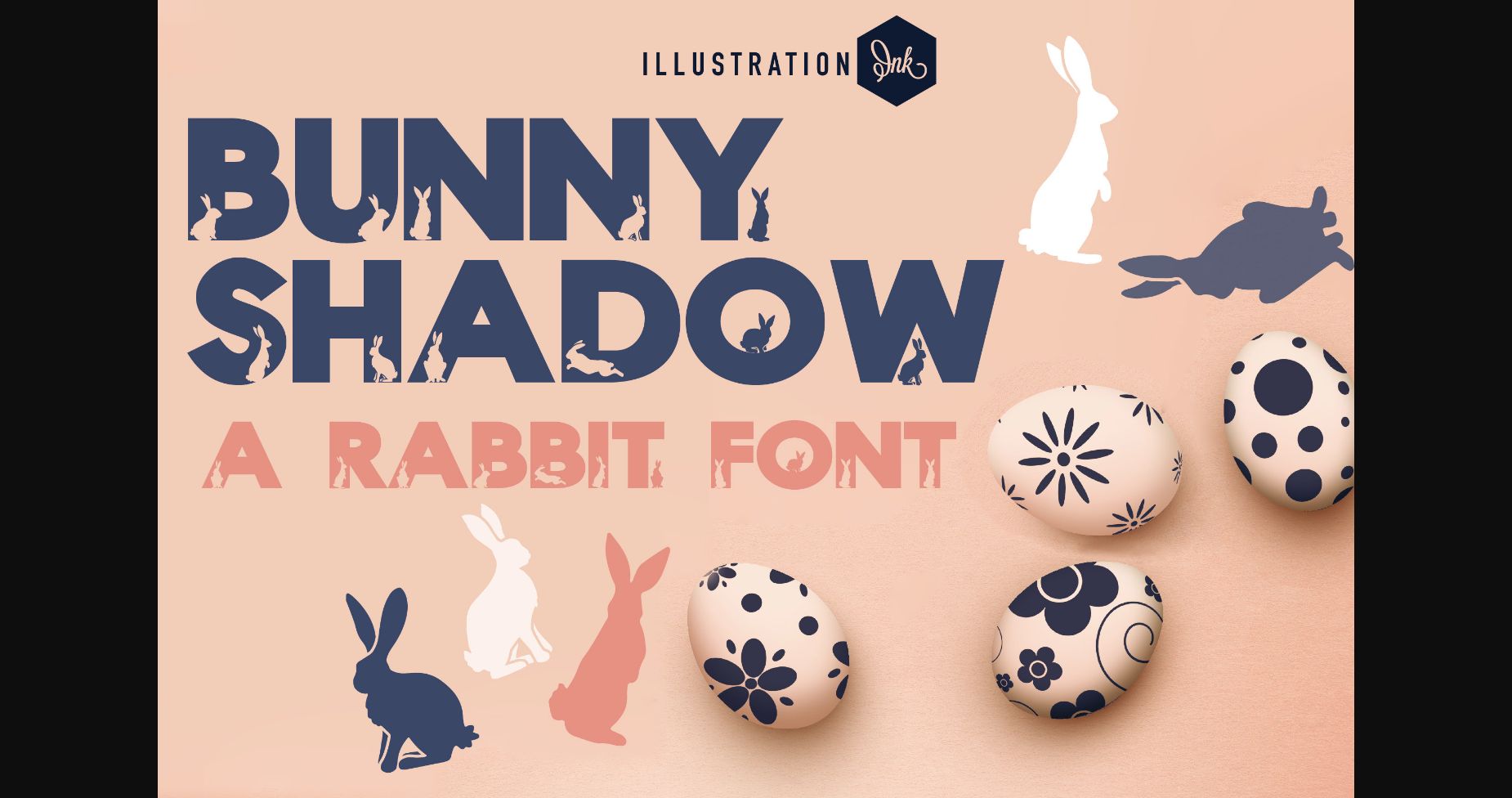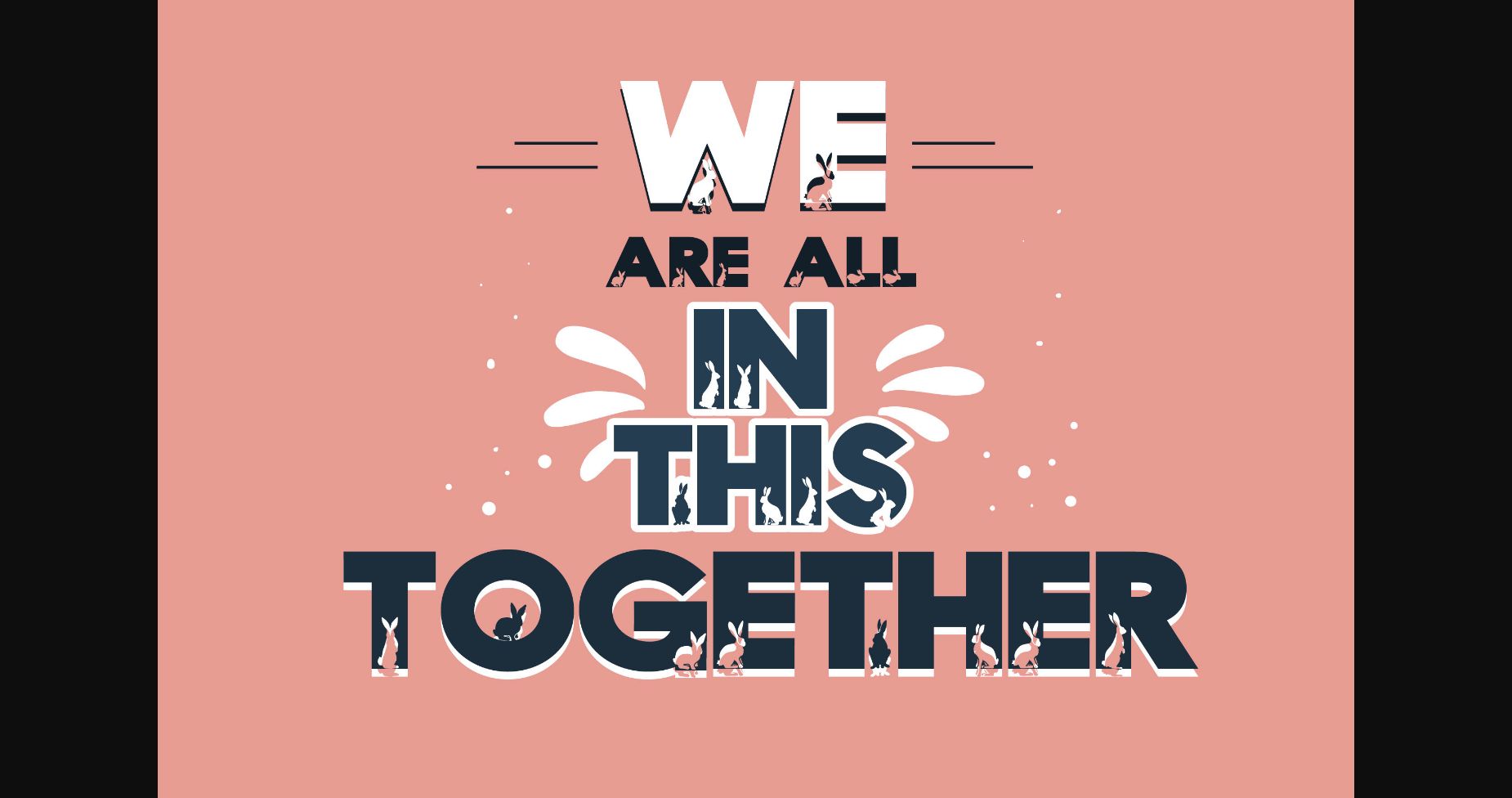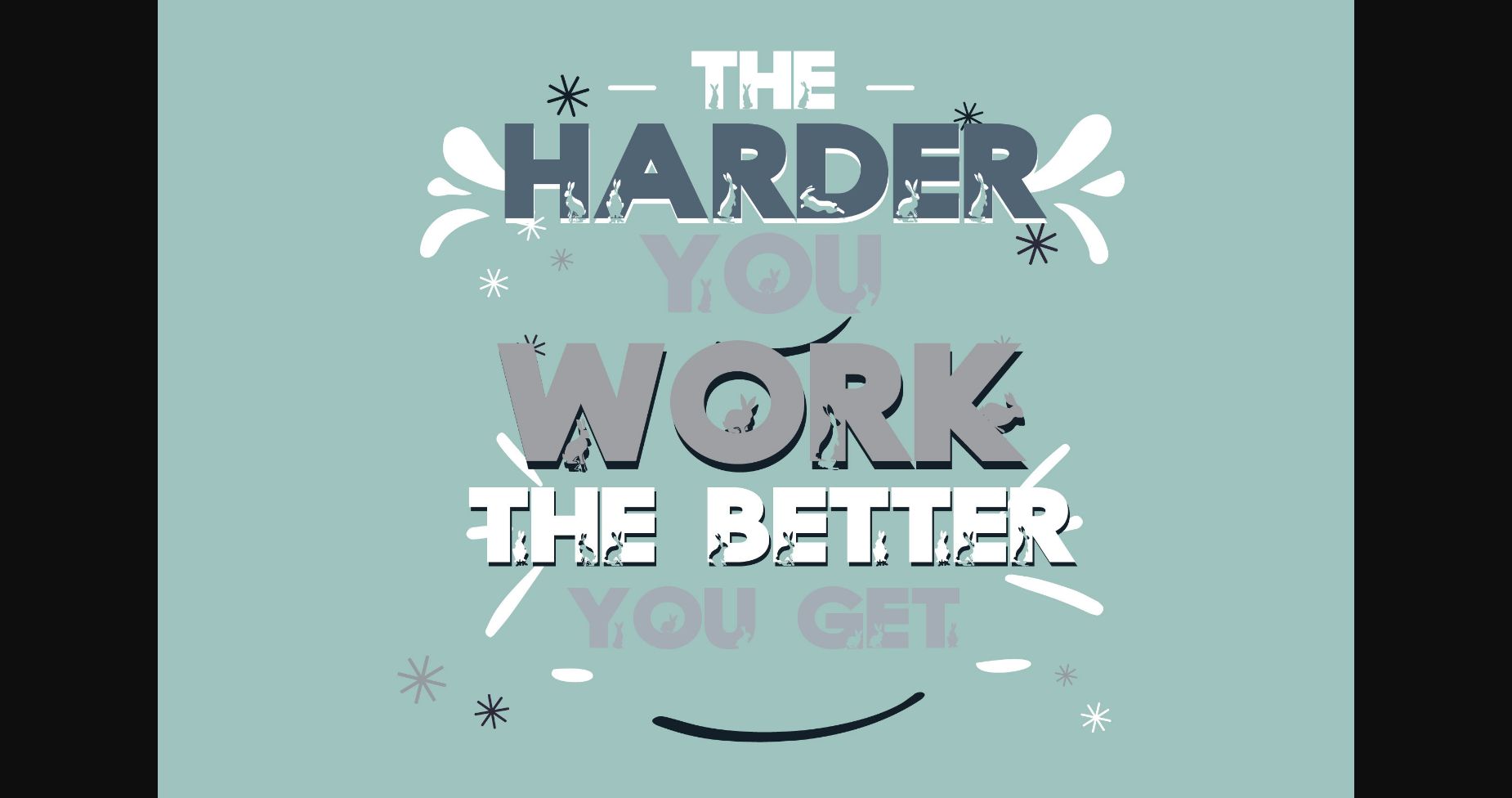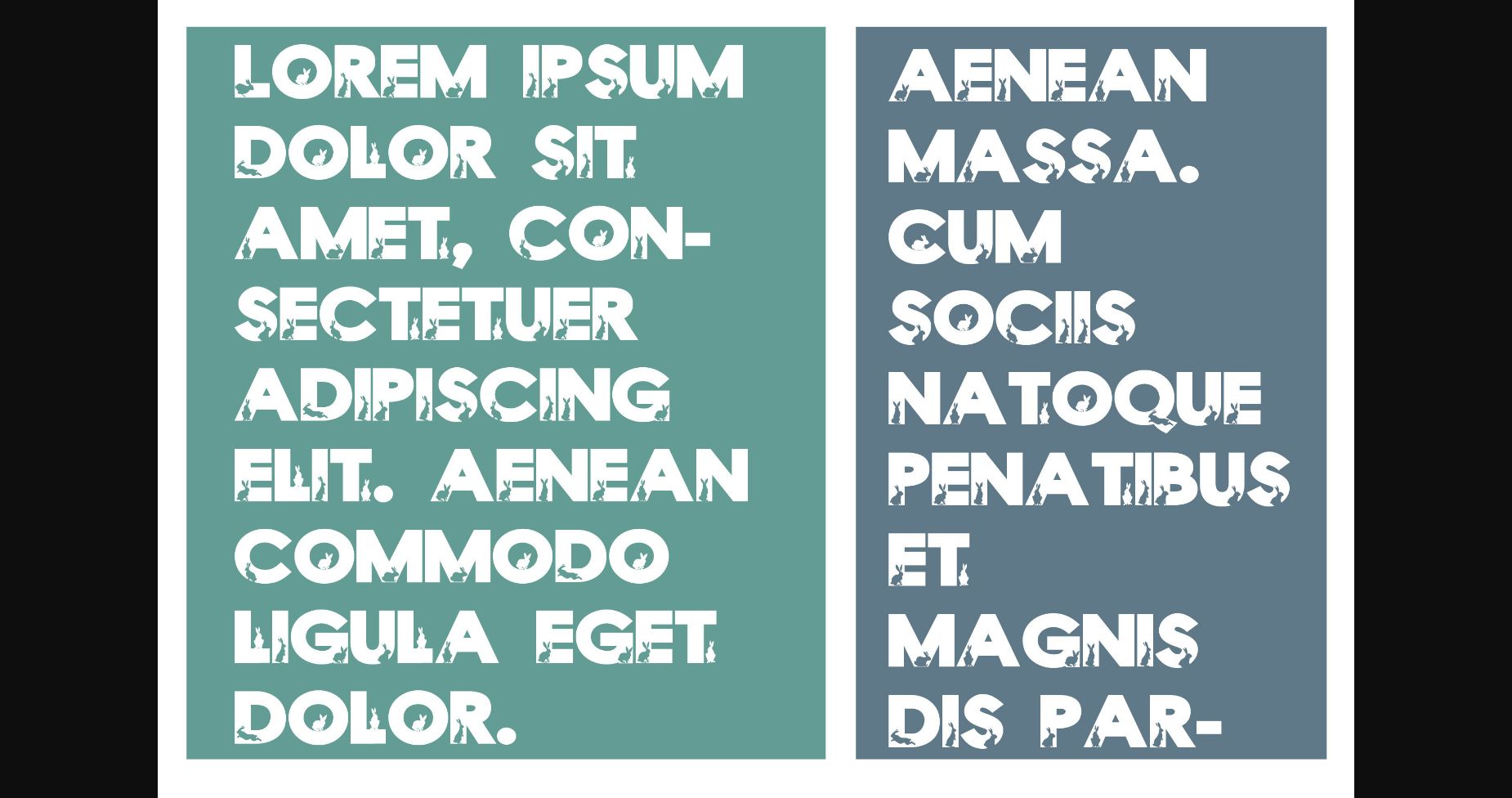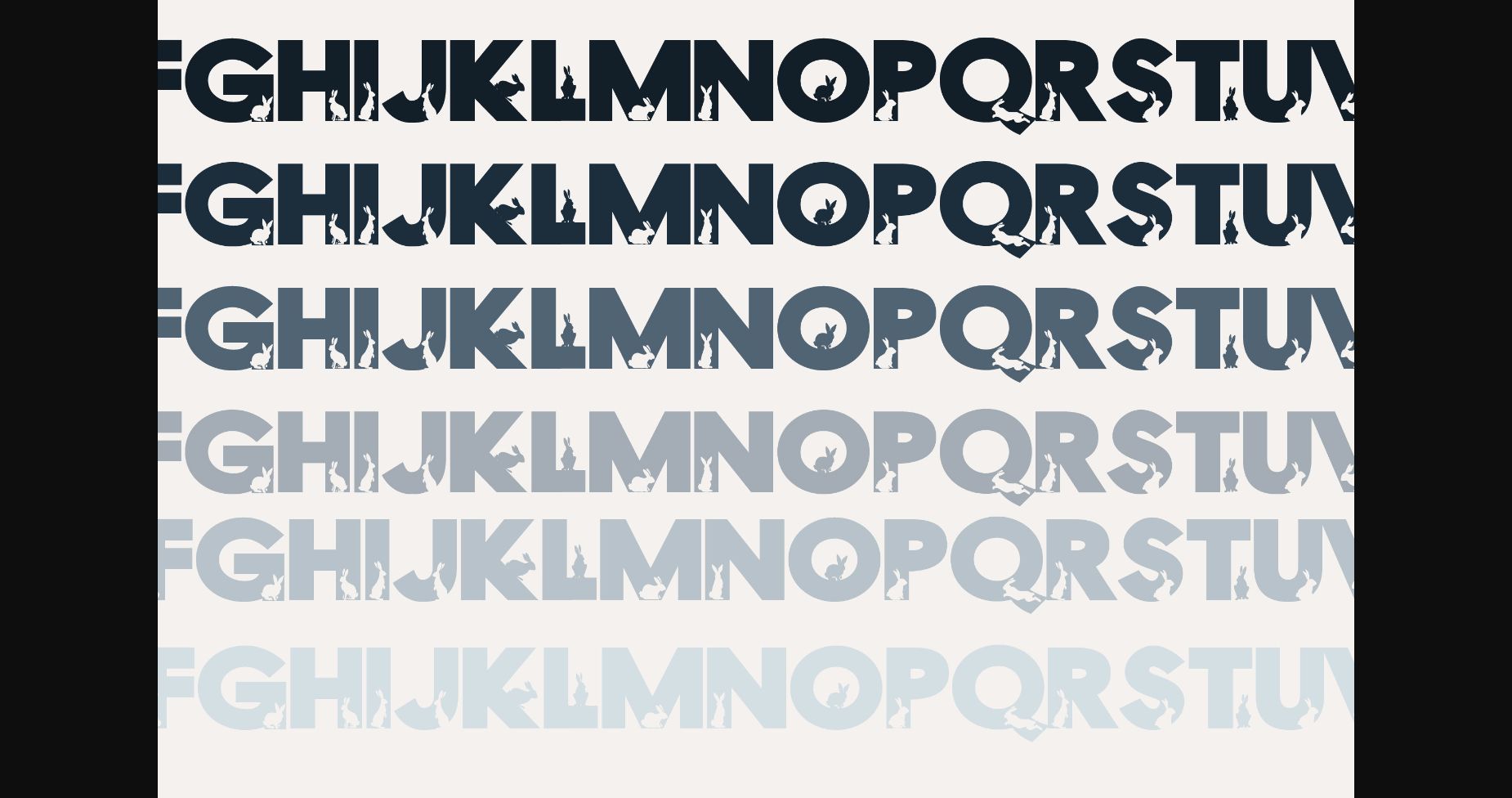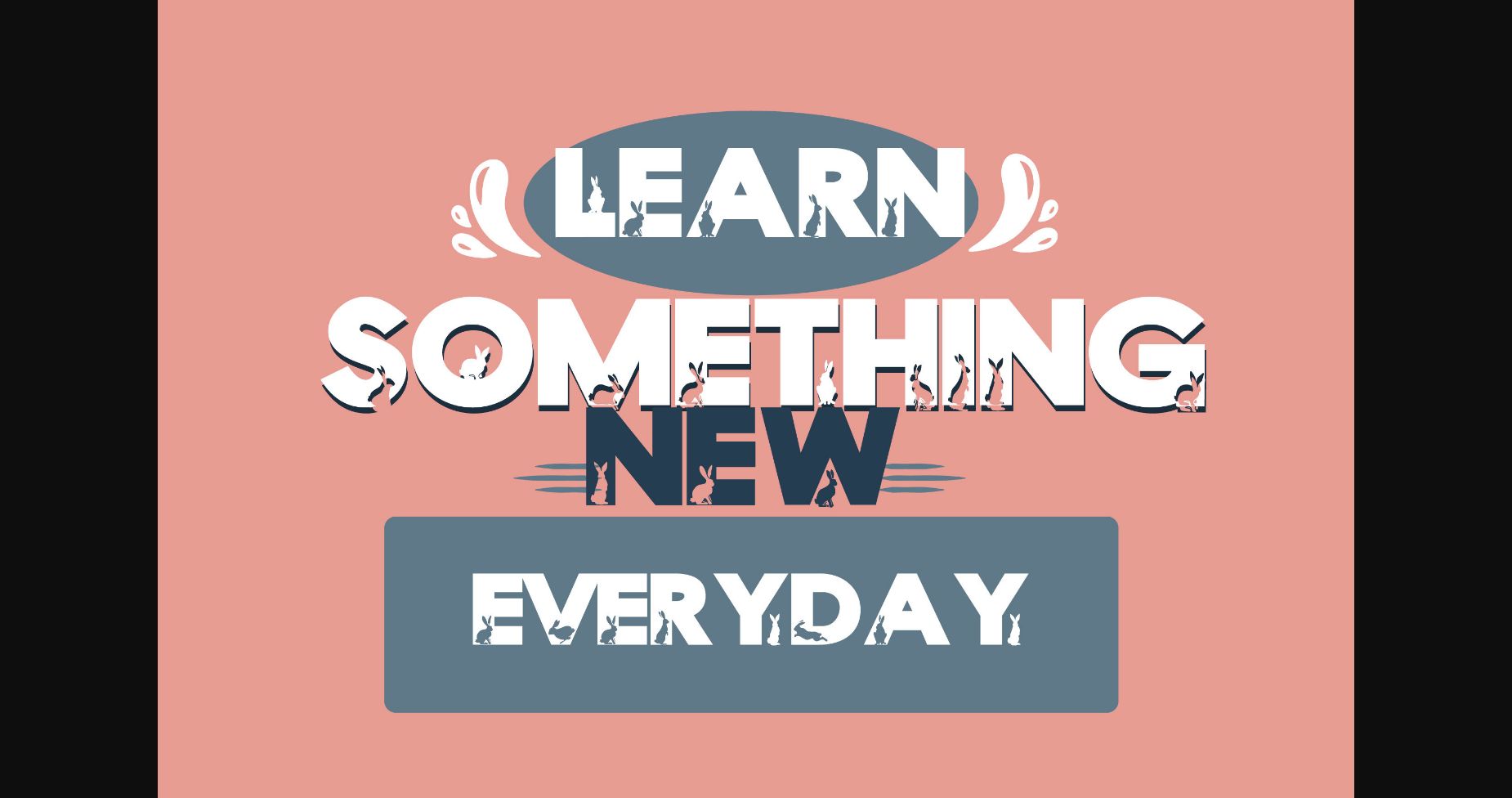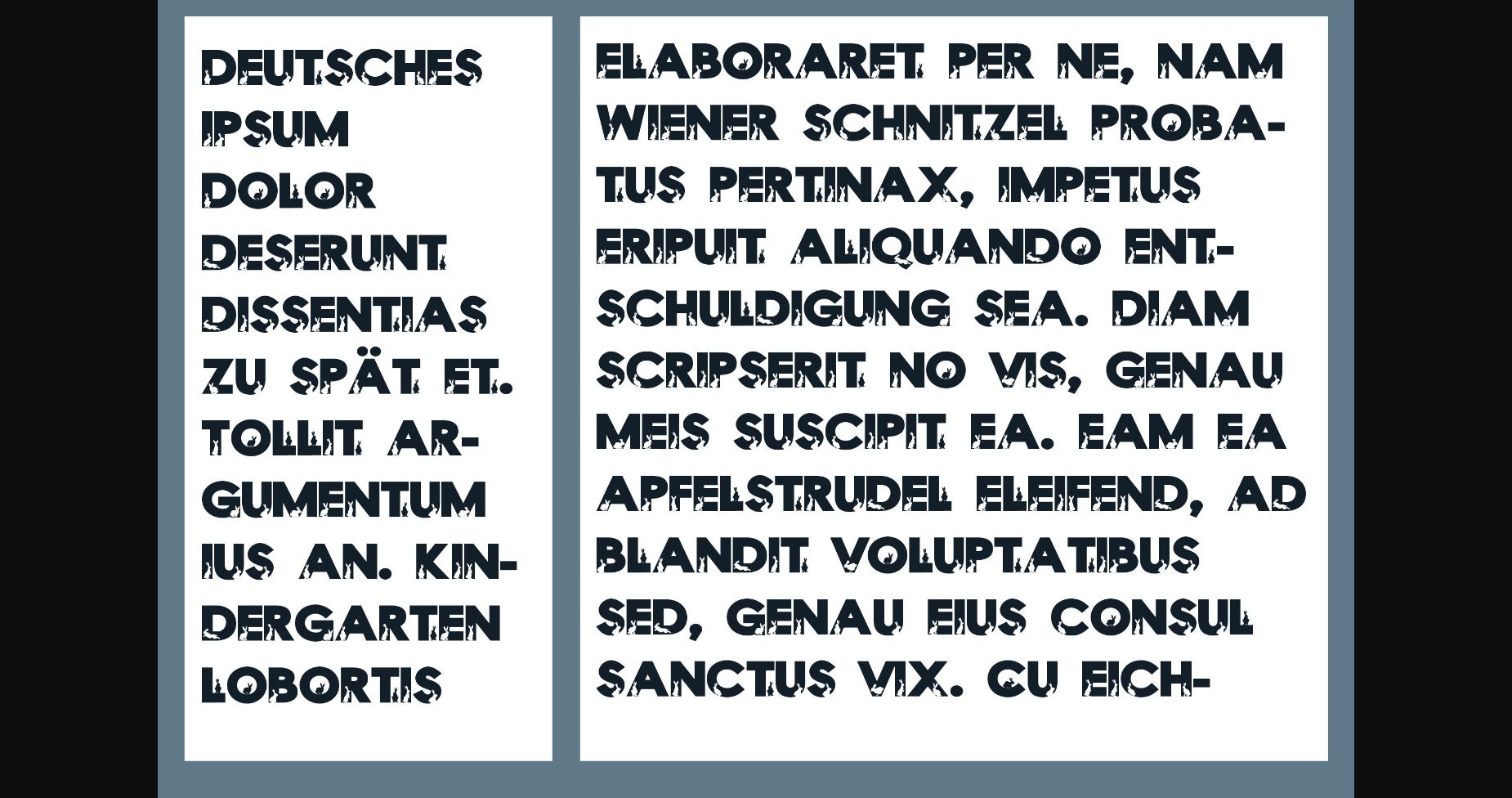
Bunny Shadow Font
About Bunny Shadow Font
Bunny Shadow is a delightful and approachable option that’s perfect for designs that need a friendly touch. Its clean lines and rounded edges give it a soft and welcoming feel, while its simple design makes it easy to read. The letters flow together smoothly, creating a cohesive and charming look.